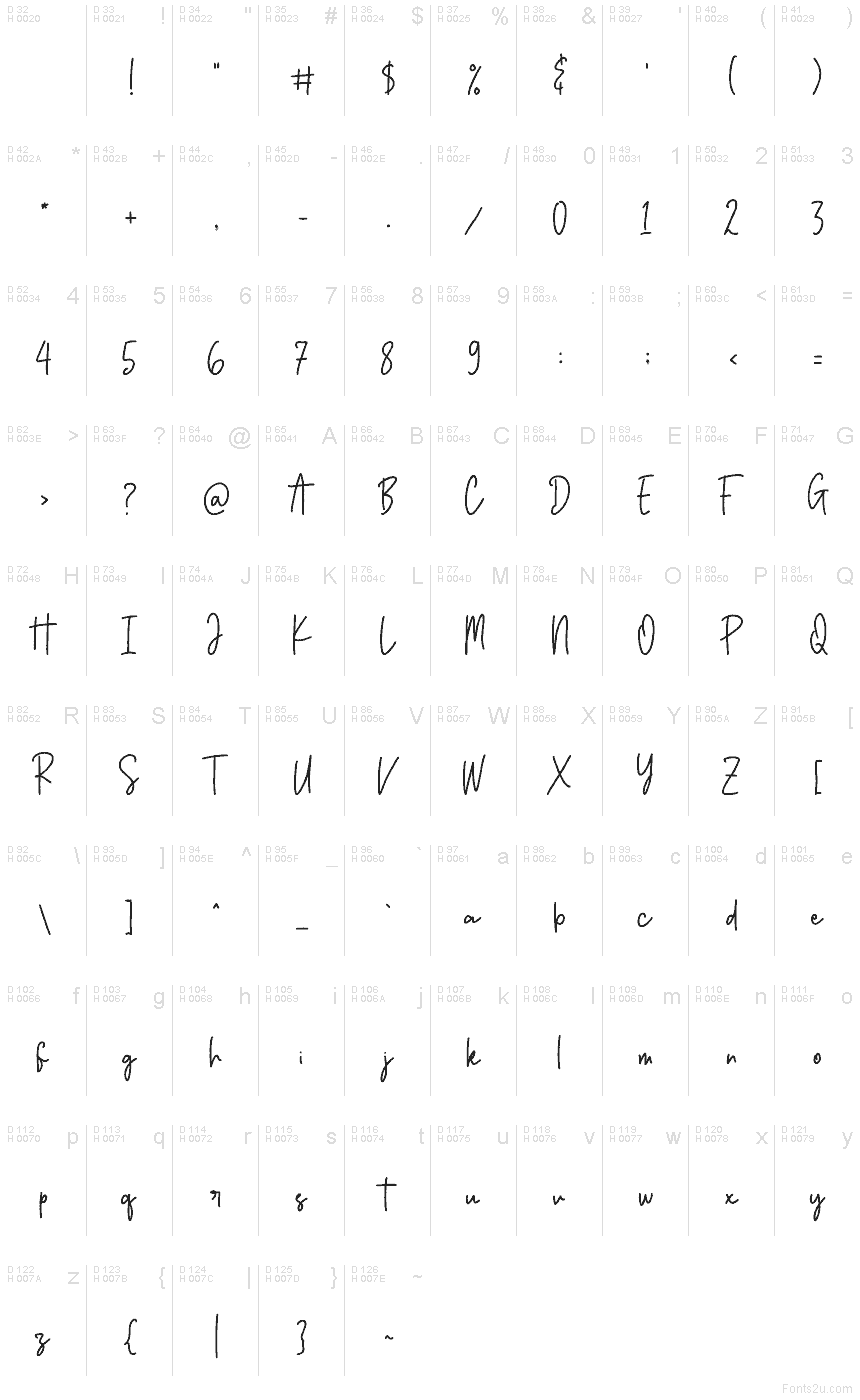
Bersihkan Vector
Bersihkan Vector font by Graphicfresh is a free handwritten font. The characters look casual yet stylish featuring flowing elements and an organic feel. It is simply a beautifully built signature-style typeface with unique curves and ends. Each word looks natural when typed using Bersihkan Vector that viewers might be tricked into thinking it was done by hand!